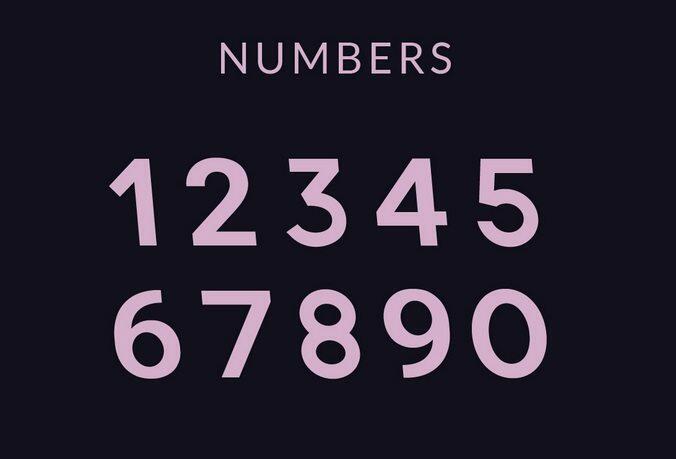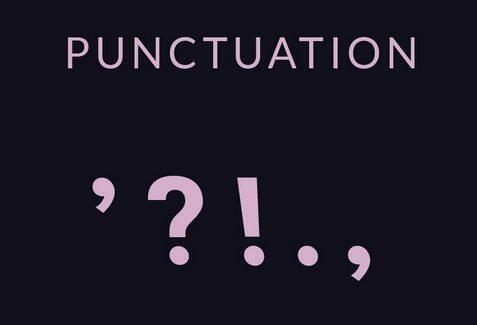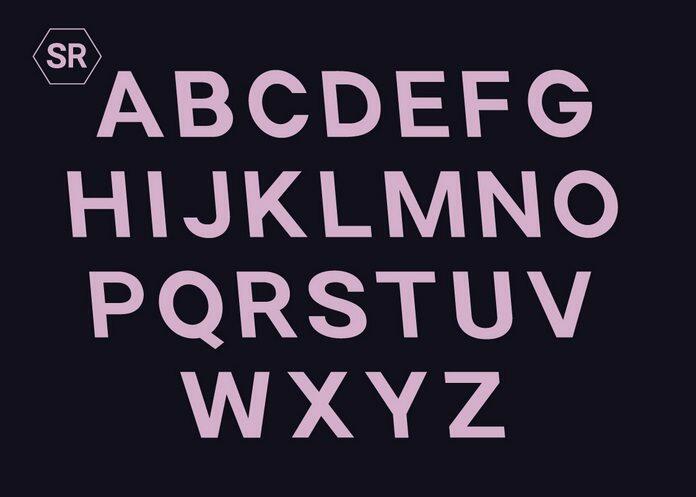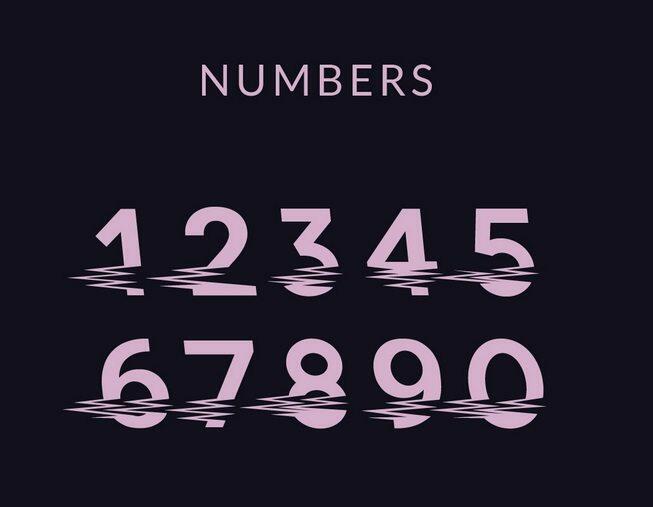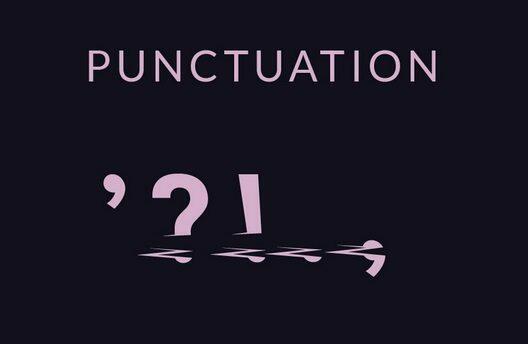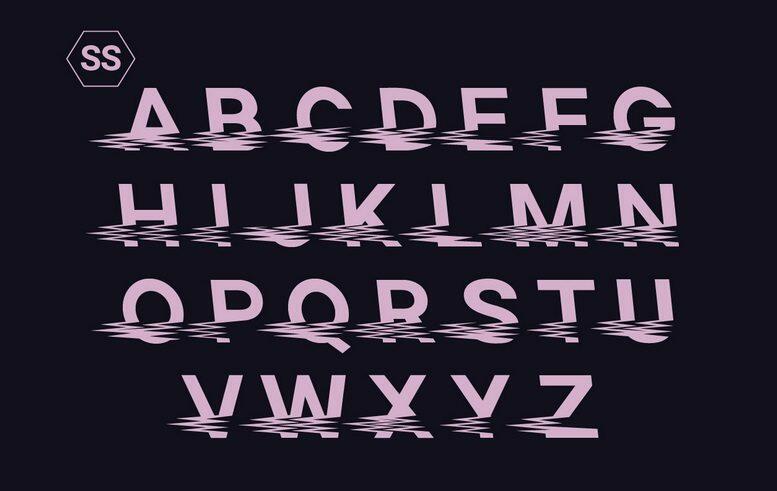
Fonts Sango Font – Free Font Of The Day #225 by Yayang Apryana November 3, 2016 Sango Font Sango is a modern VHS typeface with two weights : Sango Regular and Sango Static. Viewer discretion is advised. Sango is released by Andrew Herndon. It is free for personal and commercial use. Download